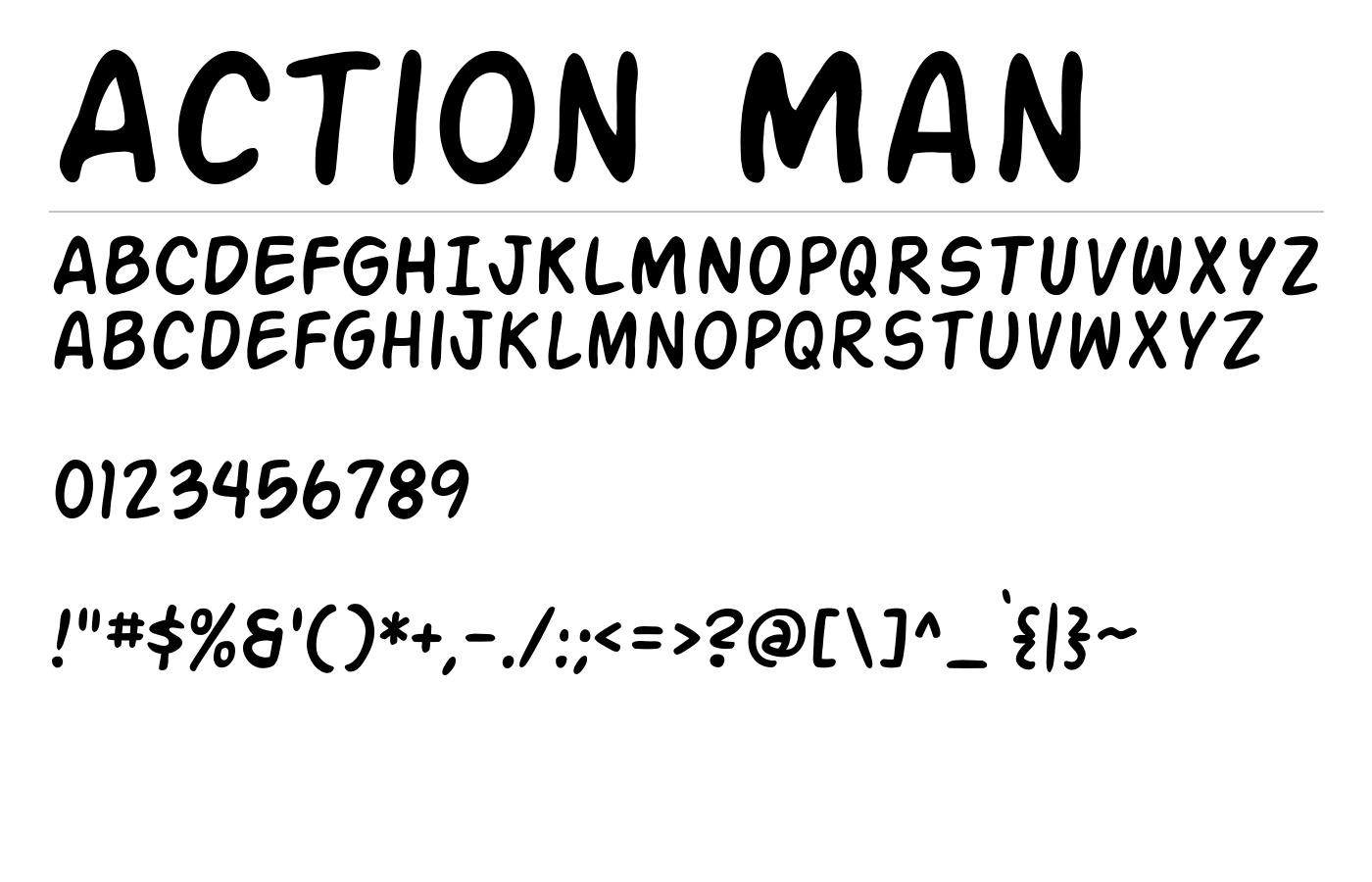
Action Man is a playful, casual sans serif font with a friendly handwritten style. Its rounded, slightly irregular letterforms and moderate weight give it an approachable, energetic feel, making it perfect for fun, informal branding, children's products, or creative projects that want to convey warmth and personality. This font works well in headlines and logos where a lively, human touch is needed.
Action Man Font
About Action Man Font
| Font family | Action Man Font |